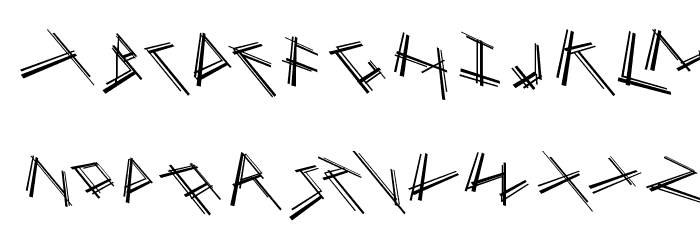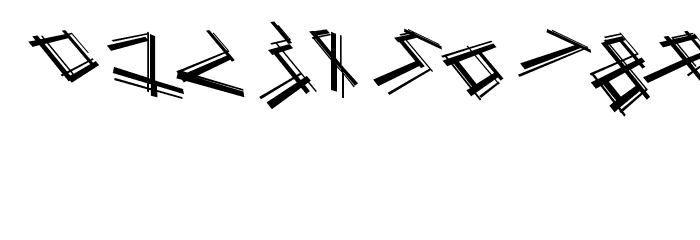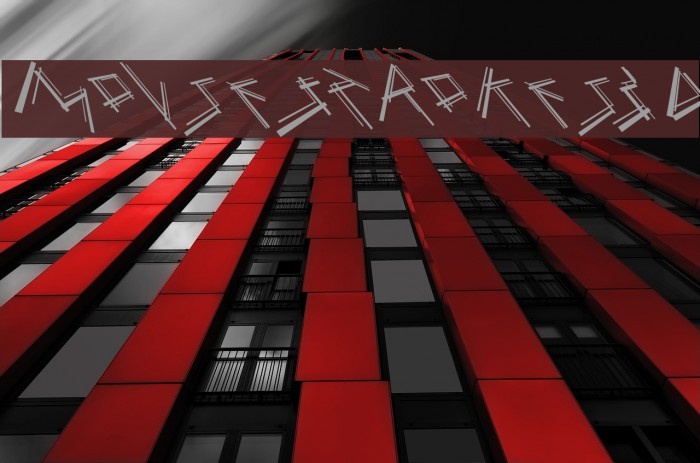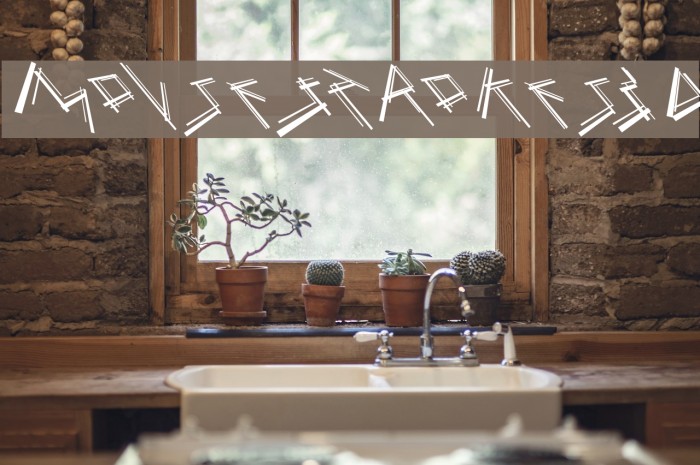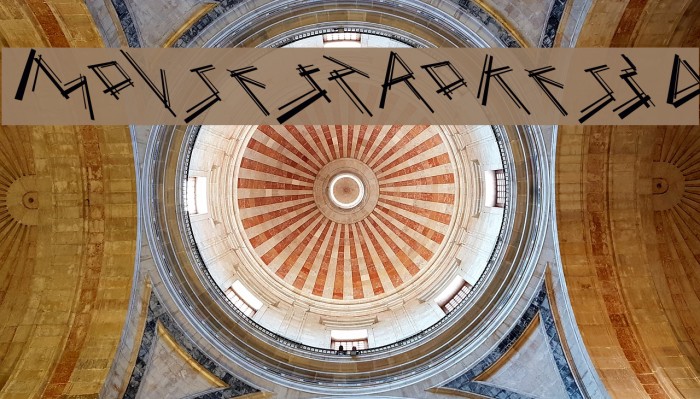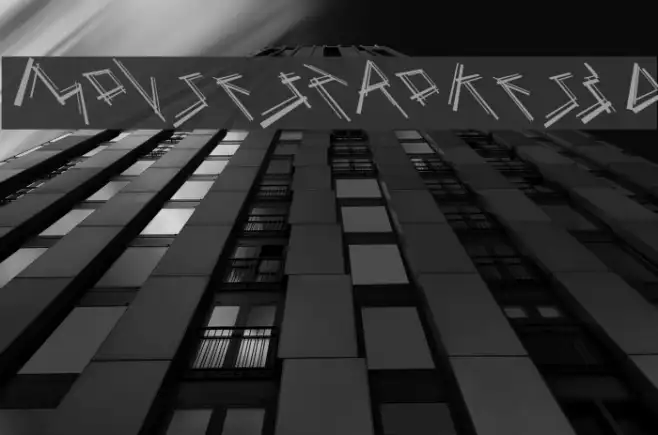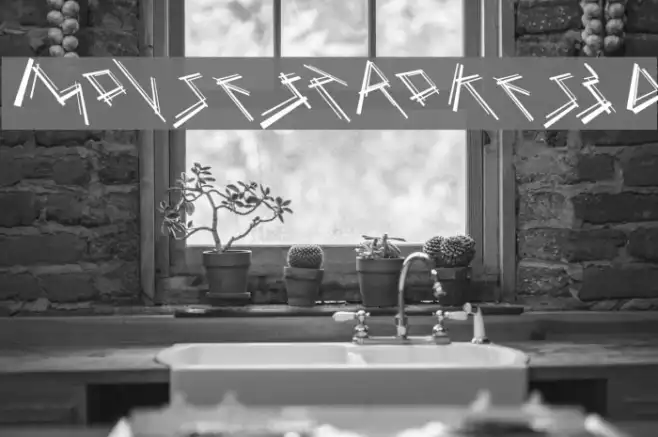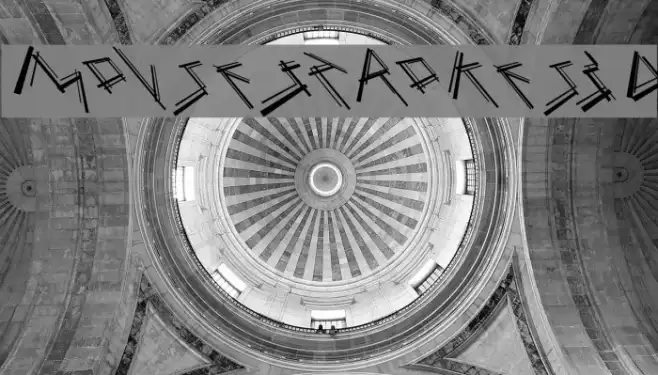
MouseStrokes3D Font
This font features a highly stylized, abstract design with a three-dimensional appearance. Each character is constructed from multiple overlapping lines, creating a sense of depth and complexity. The strokes are angular and sharp, giving the font a dynamic and edgy look. The letters are not uniform in width, adding to the chaotic and artistic feel. This font is visually striking and would stand out in any design project that requires a bold statement.
A 3D abstract font with overlapping angular lines and a dynamic, edgy style.
- Proposed Projects: Ideal for modern art projects, album covers, graffiti-inspired designs, and edgy branding.